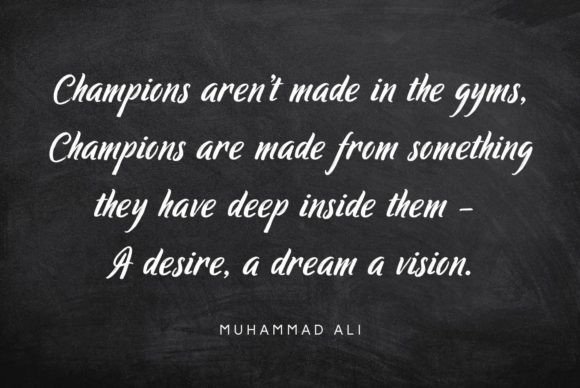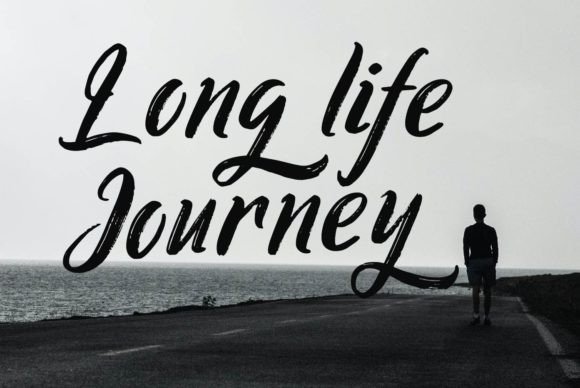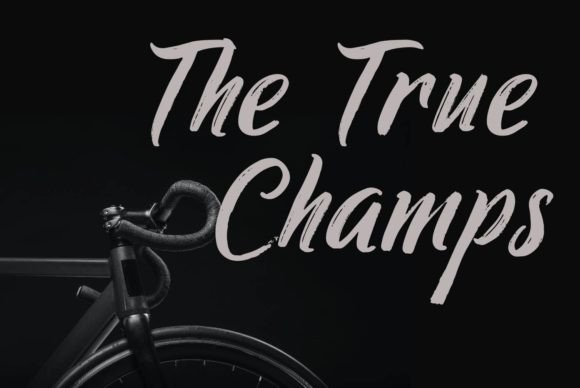
Introduction to Ringtrack Font
Ringtrack is a delicate and well-rounded handwritten font, perfect for crafty projects that need authentic typography.
👤 Author P4tcreativa
Use it for wedding invitations, birthday cards, personal branding, elegant logos, and more, and your designs will stand out .